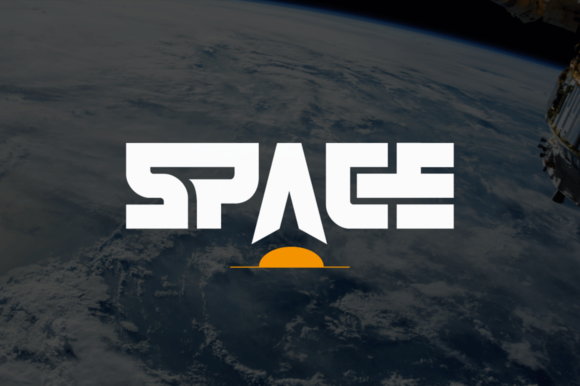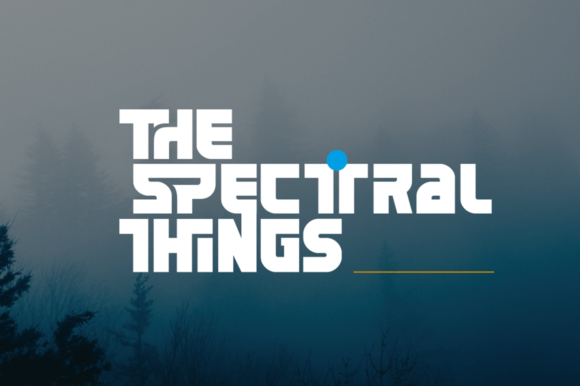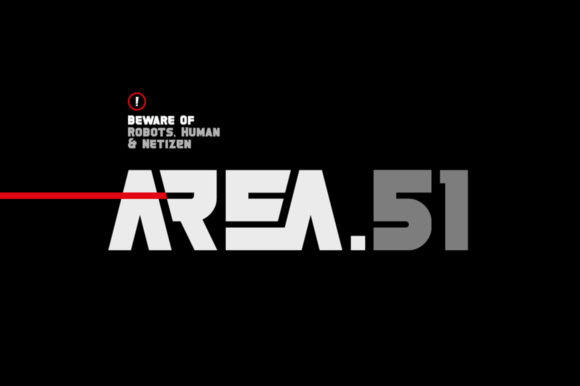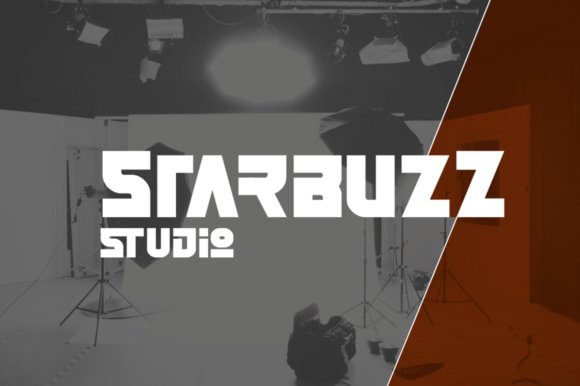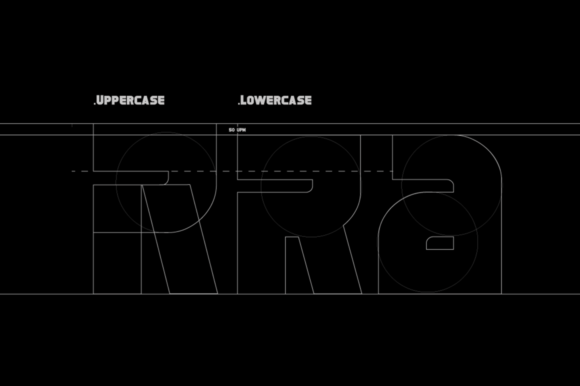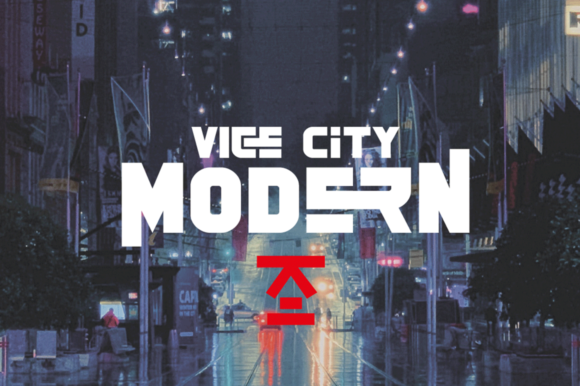
Introduction to Futurik Font
Futurik is a bold and thick lettered display font.
Key Features of Futurik Font
Why Choose Futurik Font?
Futurik Font offers exceptional quality and versatility, making it a valuable addition to your design toolkit. Whether you’re creating for personal projects or commercial use, Futurik Font delivers professional results.